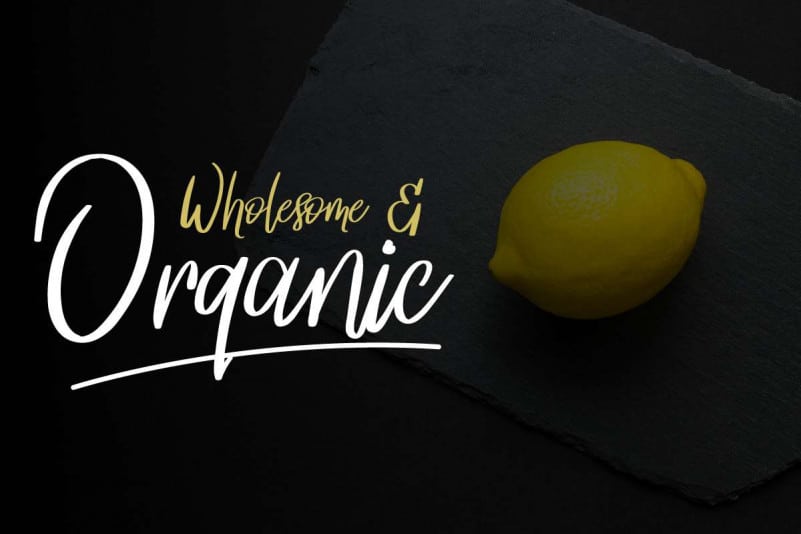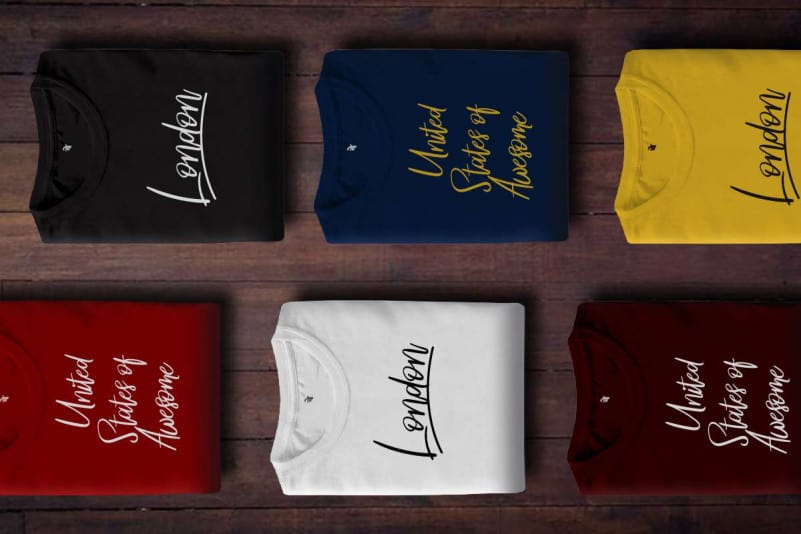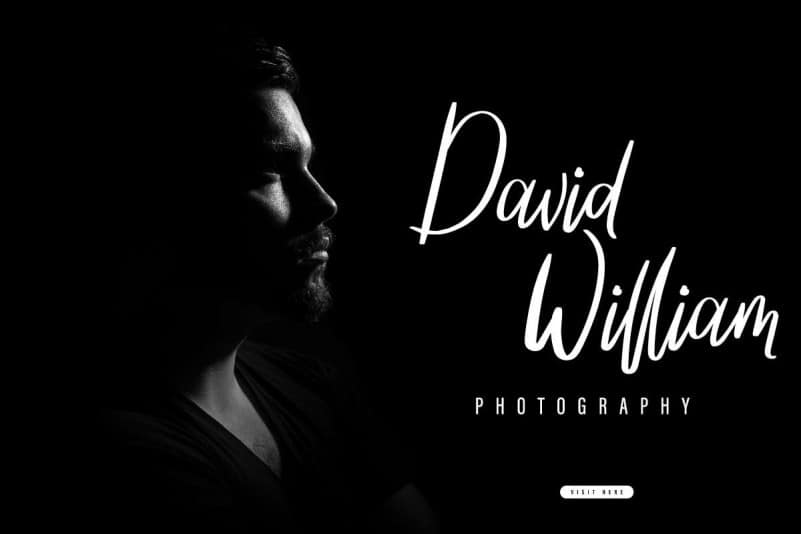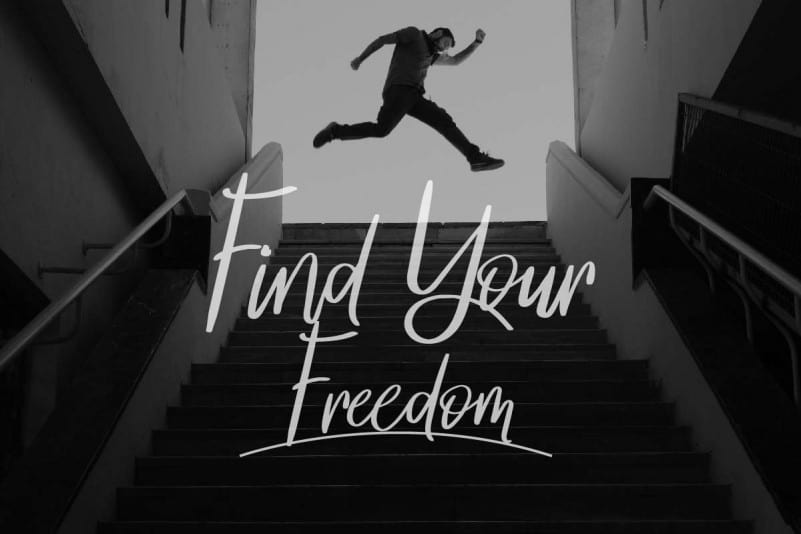
Feel Zivton Calligraphy Modern Font
Feel Zivton Calligraphy Modern Font is an exclusive hand lettering script typeface with brush style. This font has a stunning characters set, perfectly managed with well spaced and kerning. The theme style of this font will elegant, vintage, stylish, sophisticated and classic brush calligraphic style and graffiti style.
Feel Zivton Calligraphy Modern Font will be great for any projects including : branding, logo, stationery, business card, signage, flyer, brochure etc. Almost all industries will be match for this typeface: wedding, events, real estate, architect, law firm, florist, gardening, makeup artist, travel, hotel, musician etc